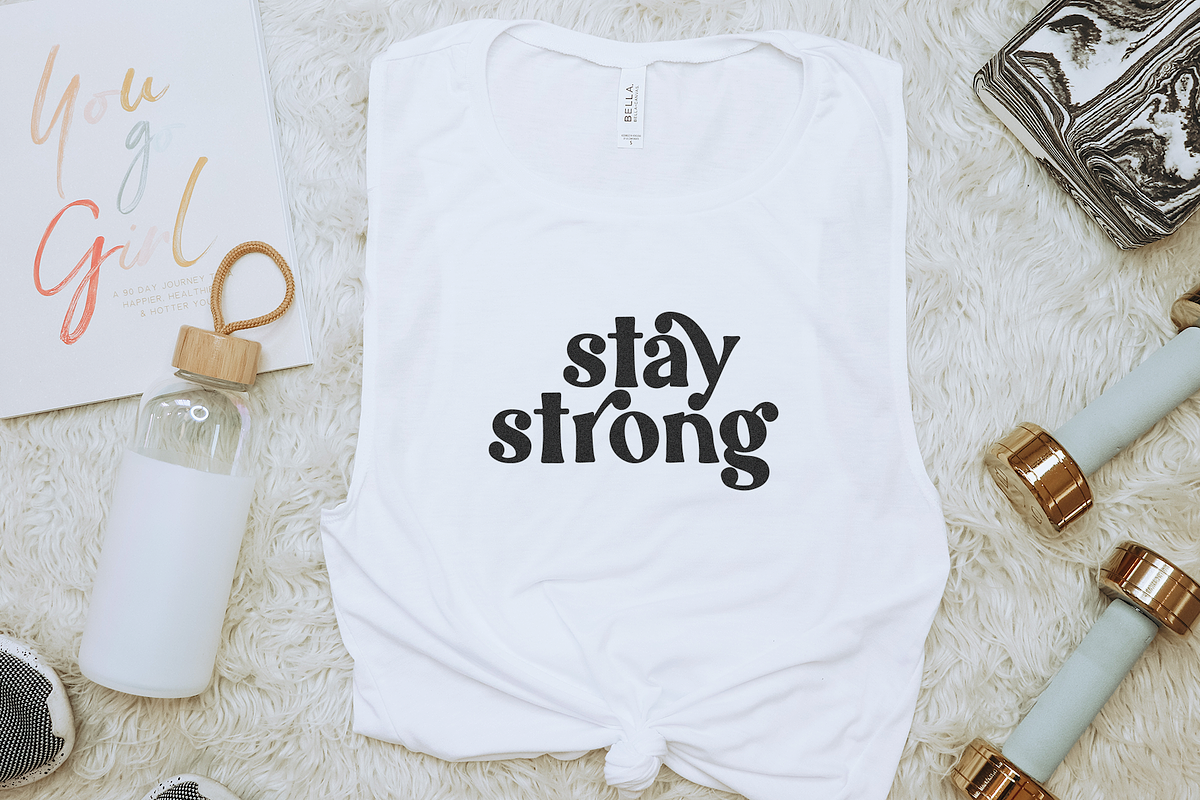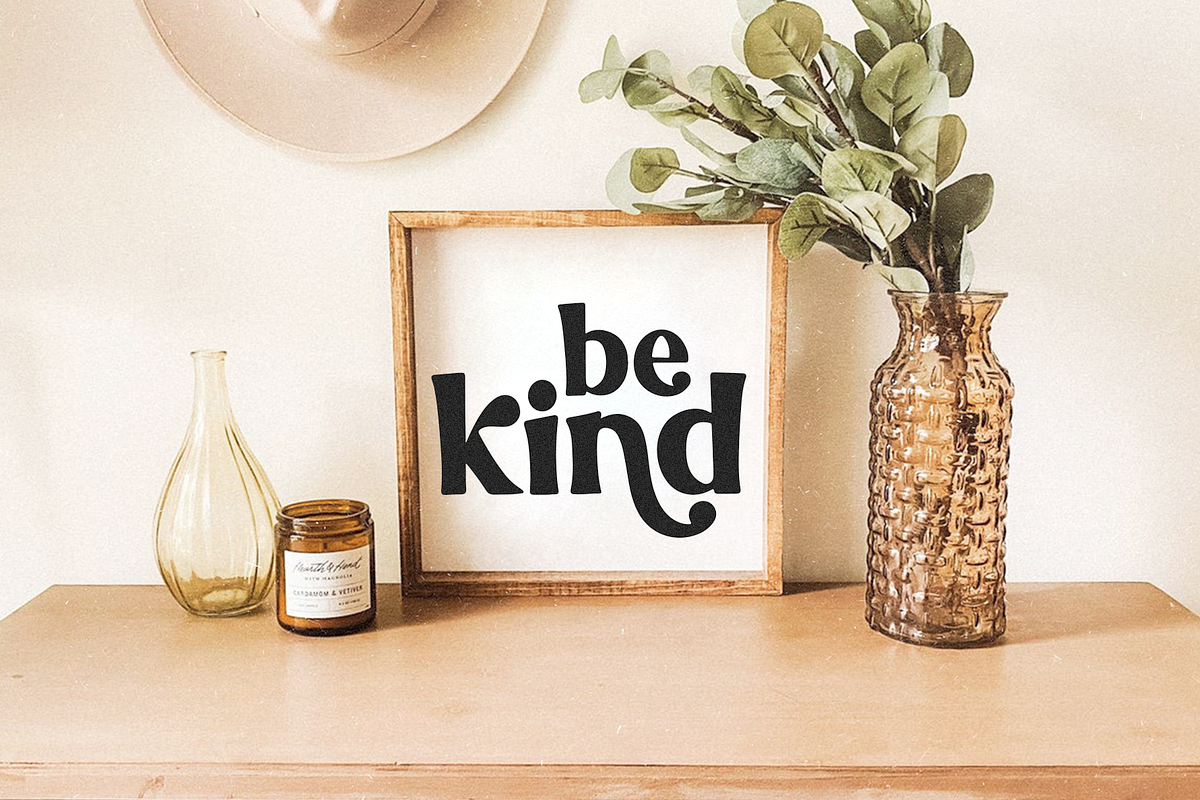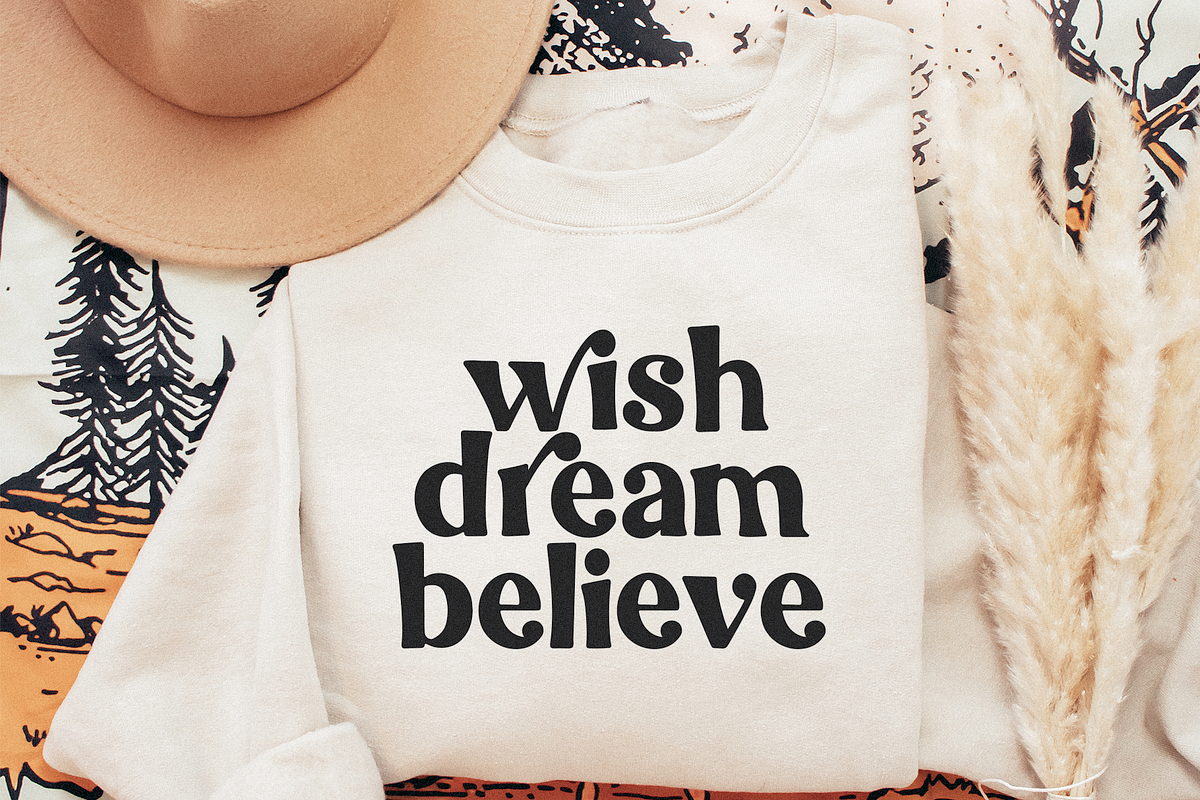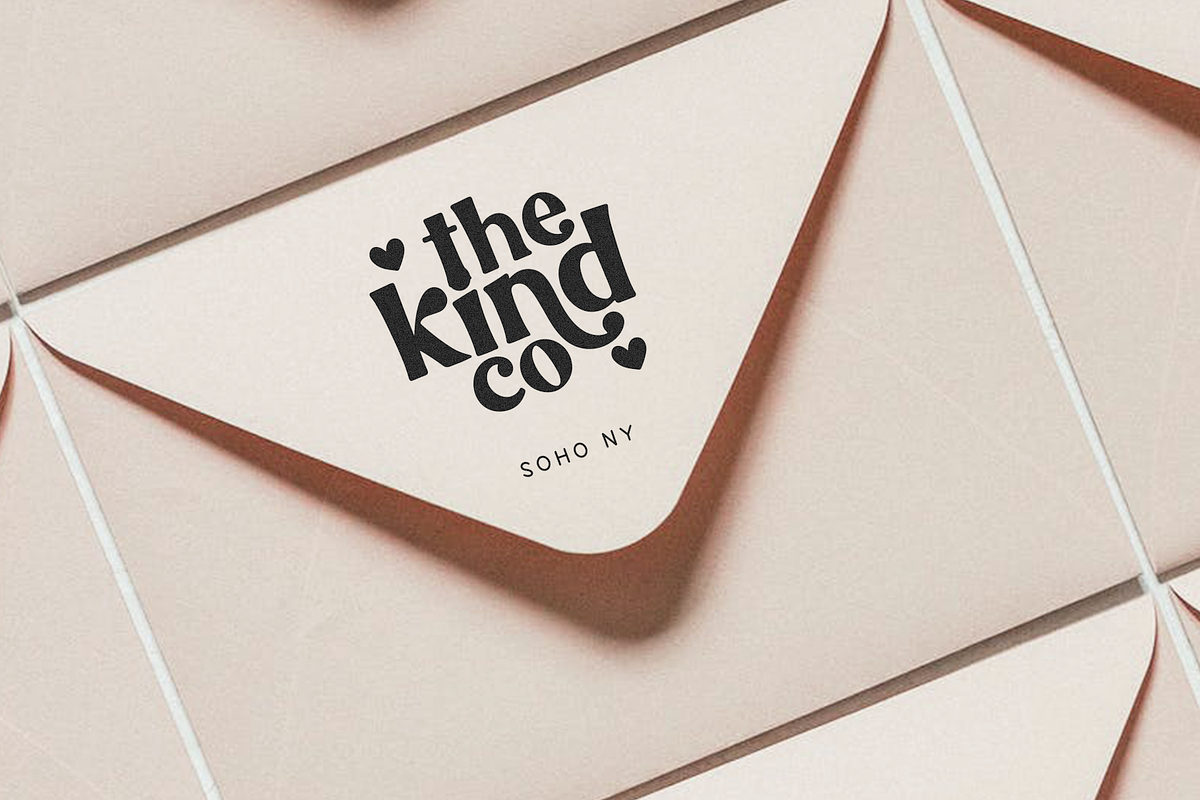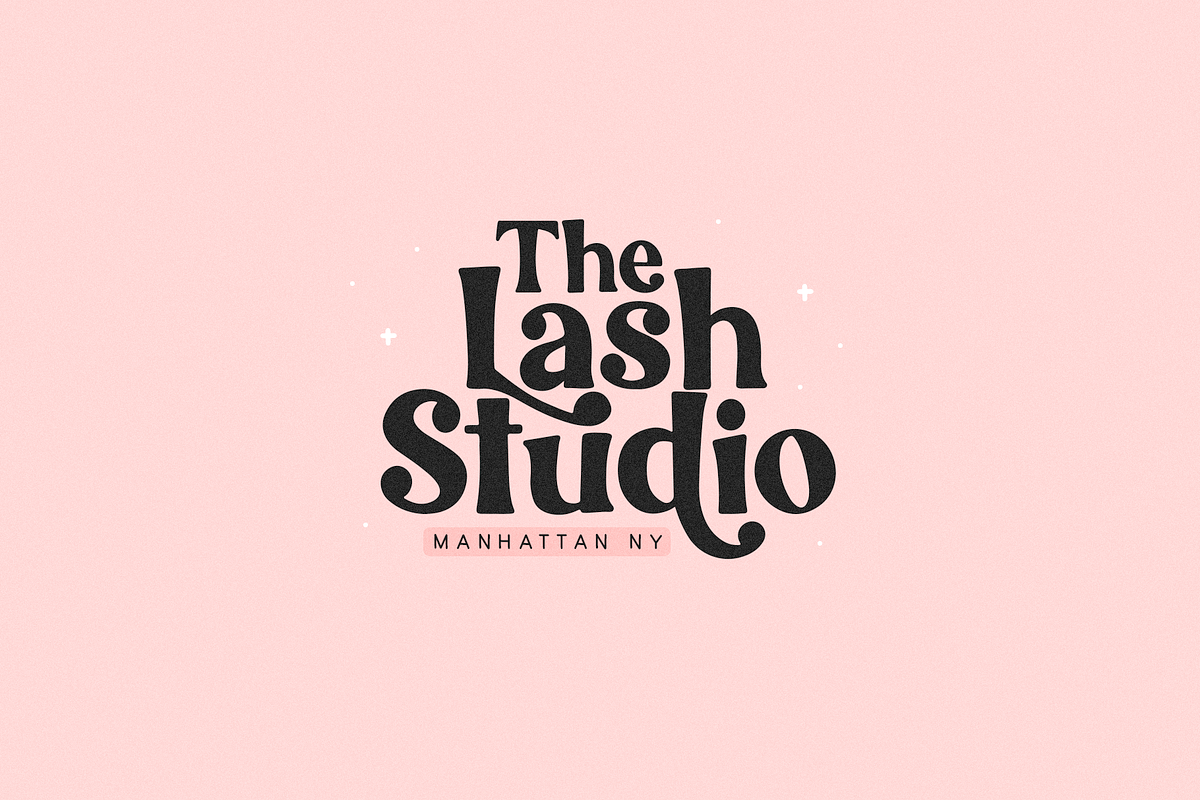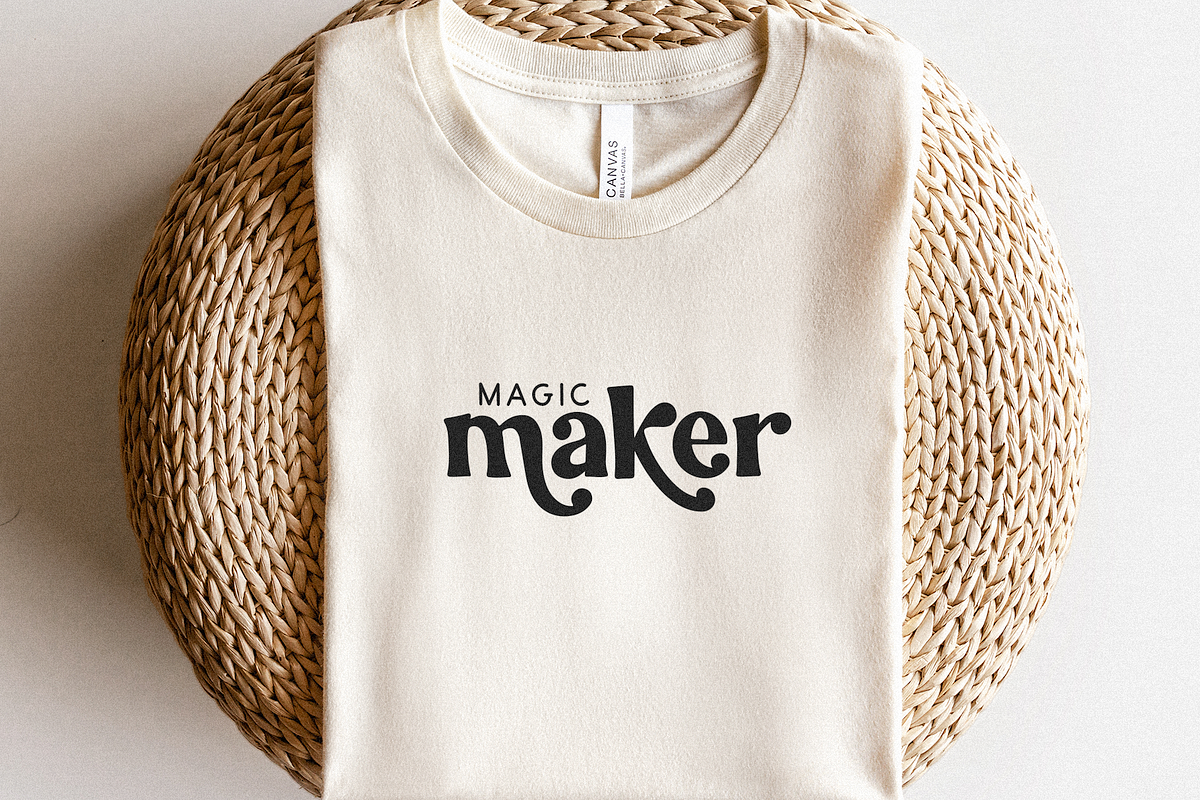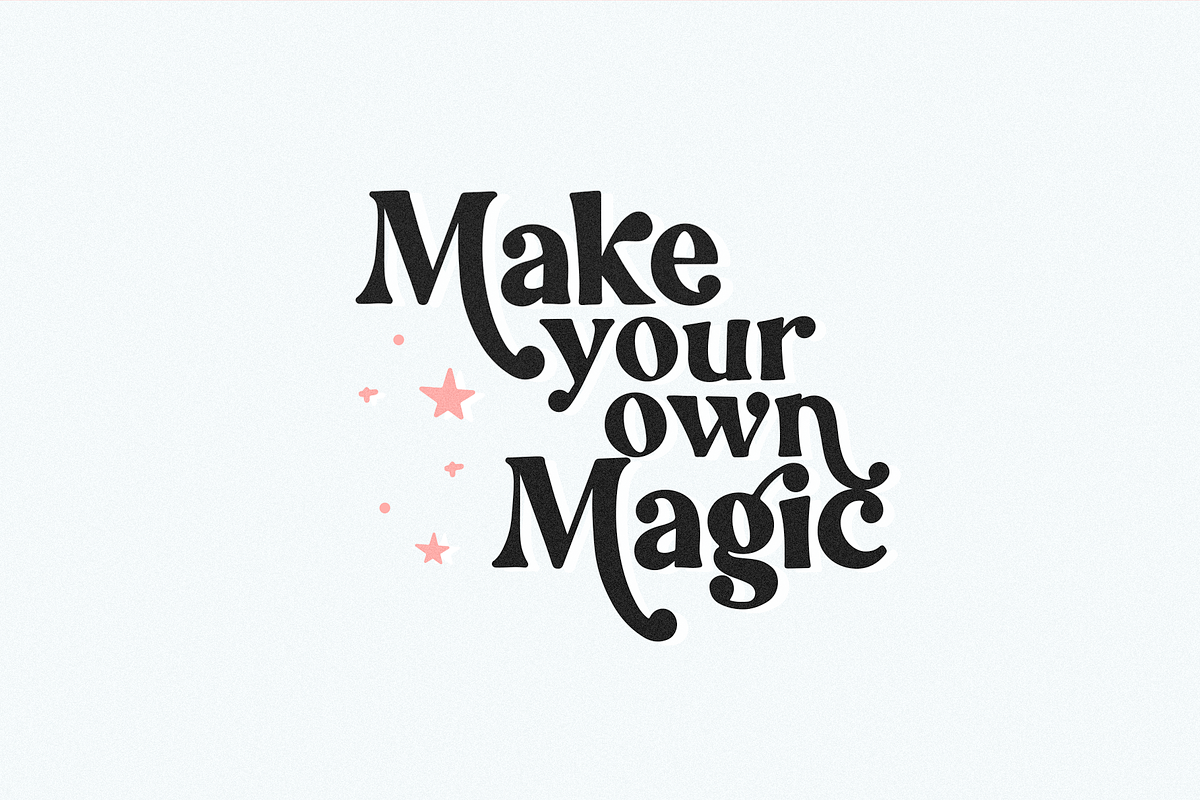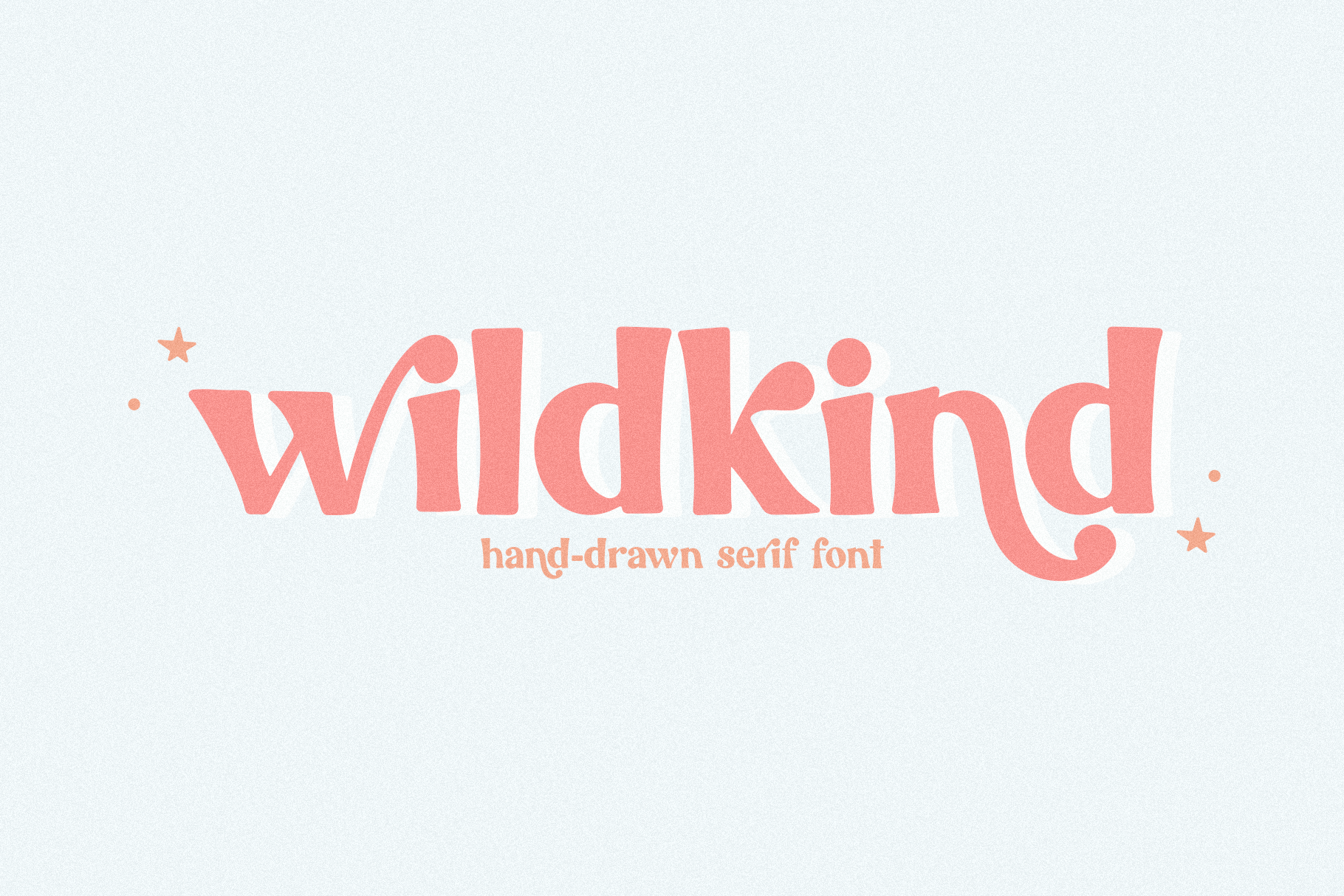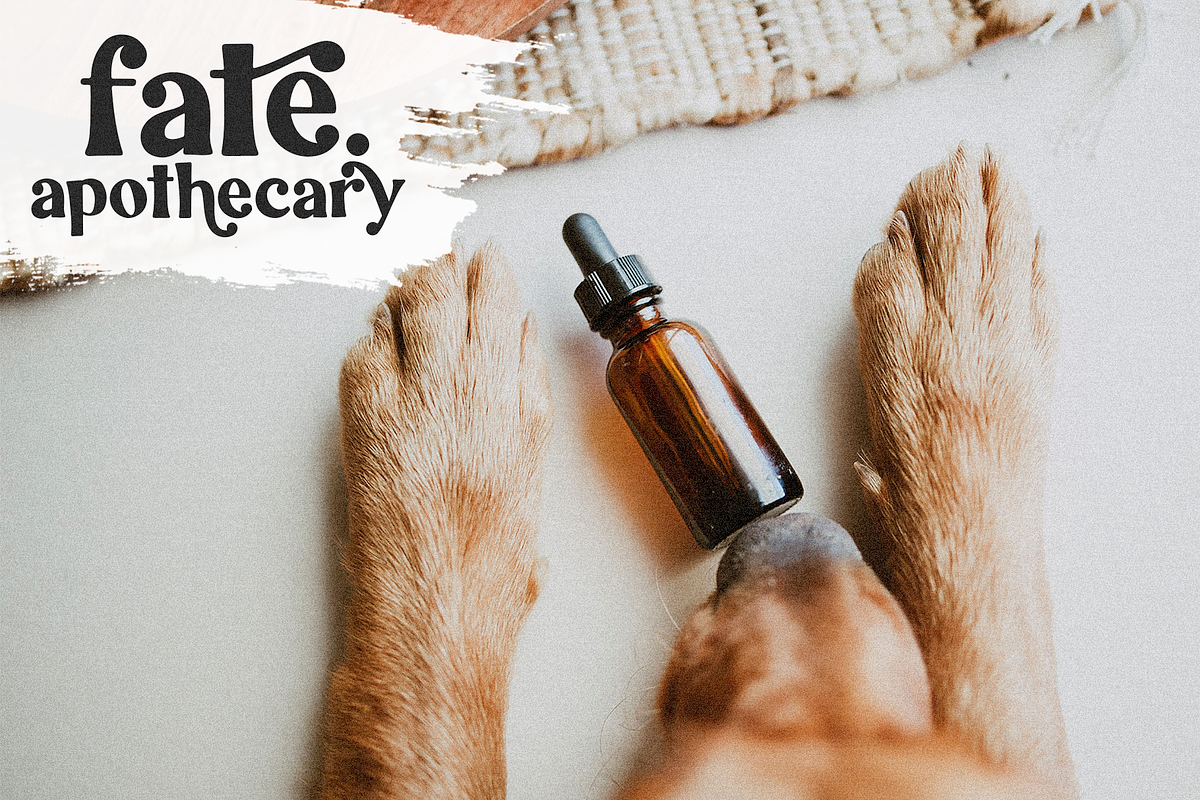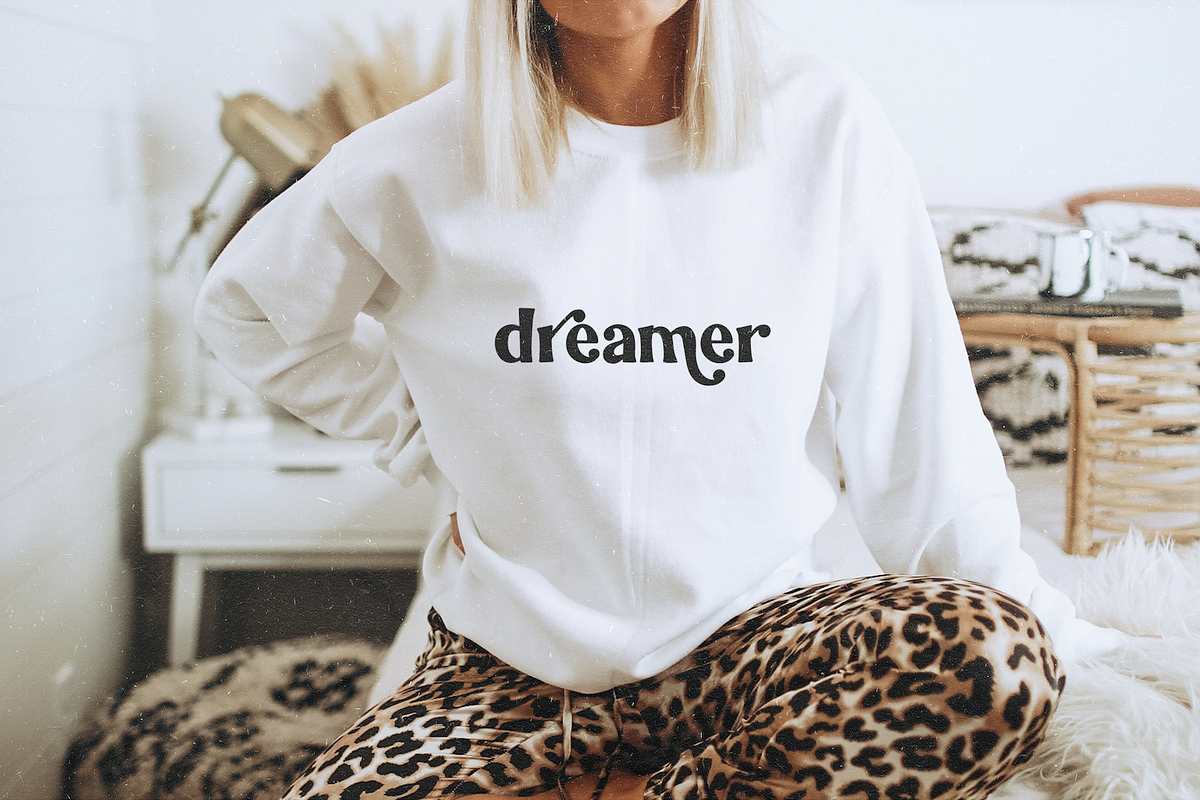
Wildkind | Boho Serif Font
Wildkind is a hand-drawn serif font.
This font has a modern boho + retro vibe! Wildkind is a great choice for branding, logos, stickers, svg designs, shirts, social media, advertisements, product packaging and more!